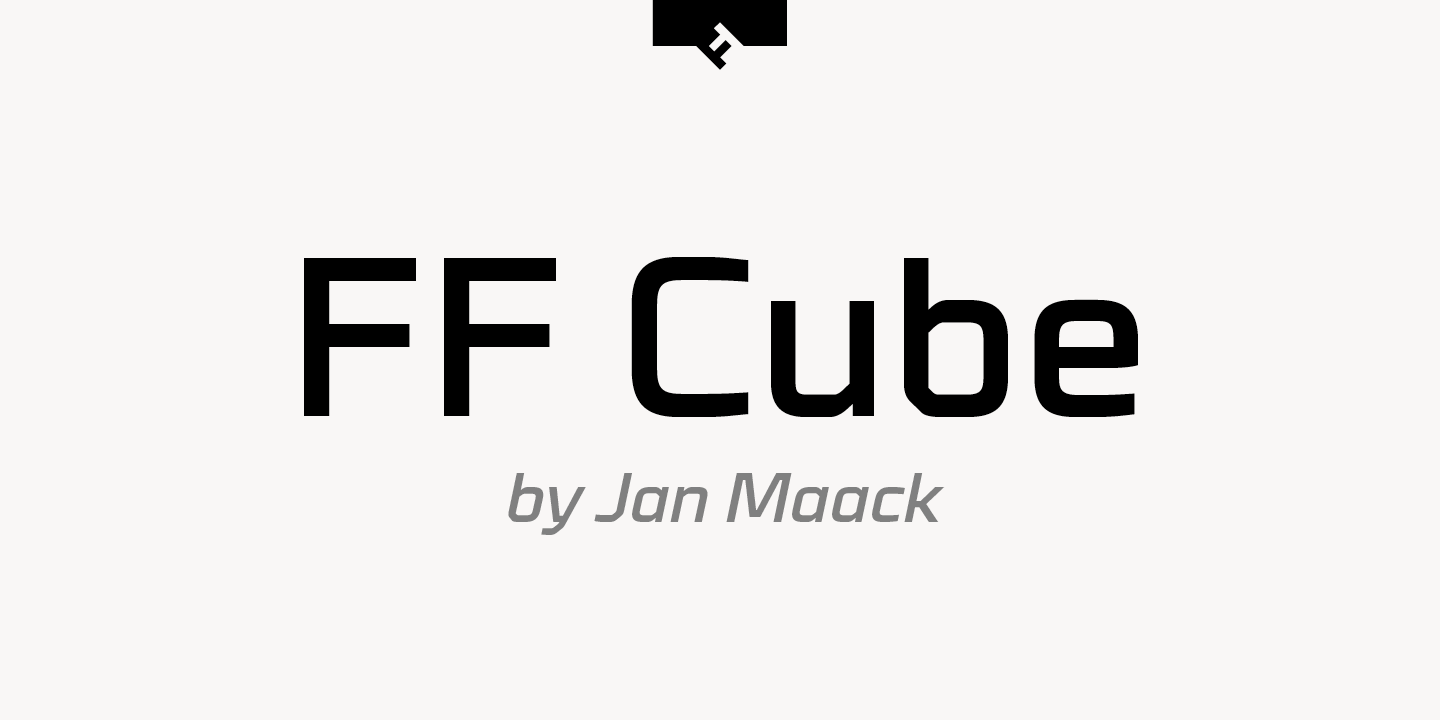
FF Cube Font is perfect for modern architectural branding, minimalist design projects, geometric logo creation, contemporary art exhibitions, tech startup identities, industrial product packaging, construction company materials, engineering presentations, mathematical publications, and cutting-edge digital interfaces that require precise geometric aesthetics.
What makes FF Cube Font exciting is its masterful execution of pure geometric principles that create letterforms of mathematical precision and architectural beauty. This sophisticated typeface embodies the essence of modernist design philosophy with its clean cubic structures and systematic approach to typography. The font's rigorous geometry delivers both visual impact and functional clarity, making it an essential tool for contemporary design professionals.
The FF Cube Font family includes multiple weights from light to black, along with condensed and extended variations that maintain the font's geometric integrity. Special mathematical symbols, architectural ornaments, and precise grid-based alternates provide comprehensive support for technical and creative applications requiring exact geometric consistency.